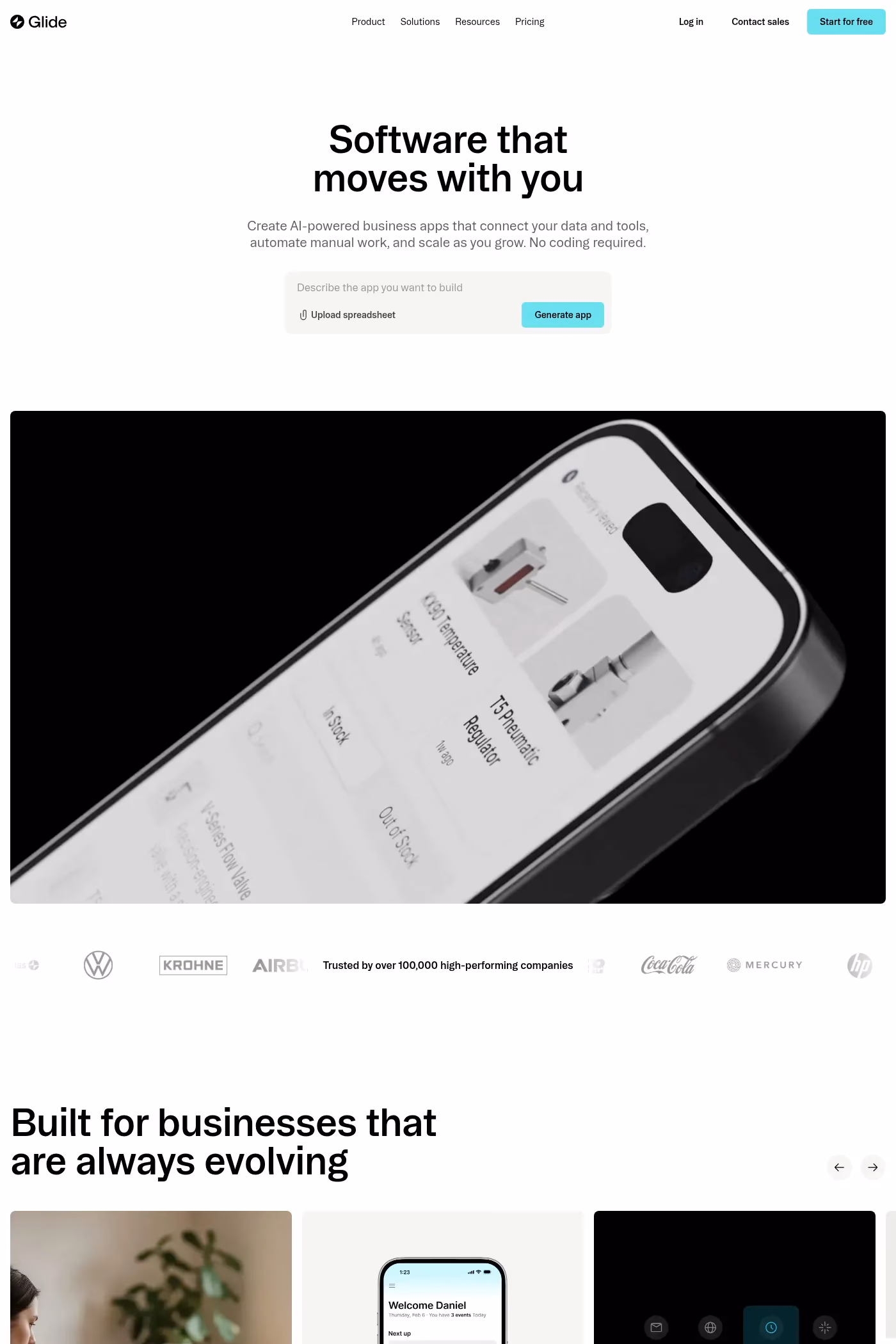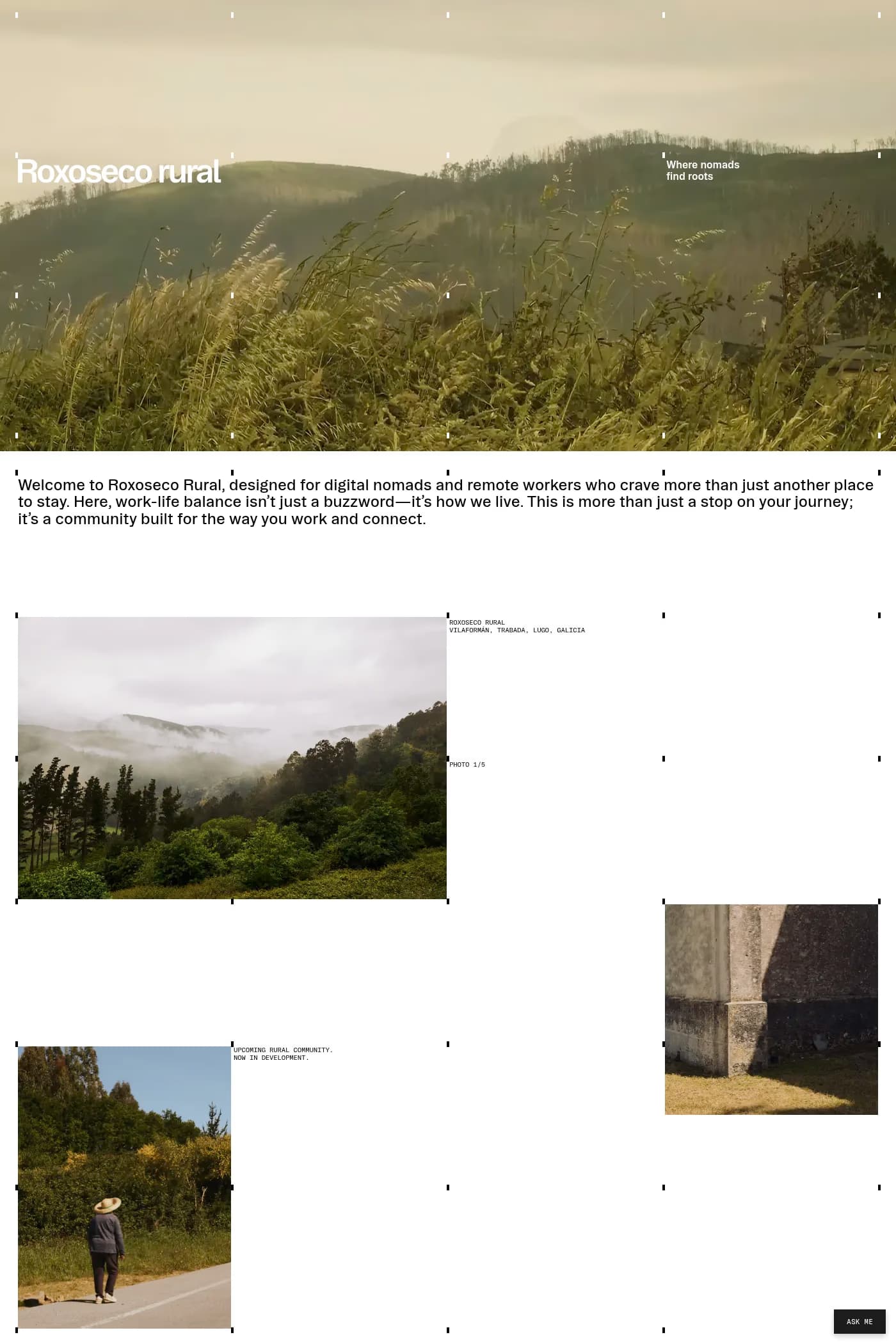
Booton is a sans-serif typeface from Displaay Type Foundry.
Booton is a versatile sans-serif typeface engineered for the digital age. Its unique uni-width feature maintains consistent glyph widths across all weights and styles, ensuring stable spacing and alignment—ideal for button designs and digital interactions like hover effects.